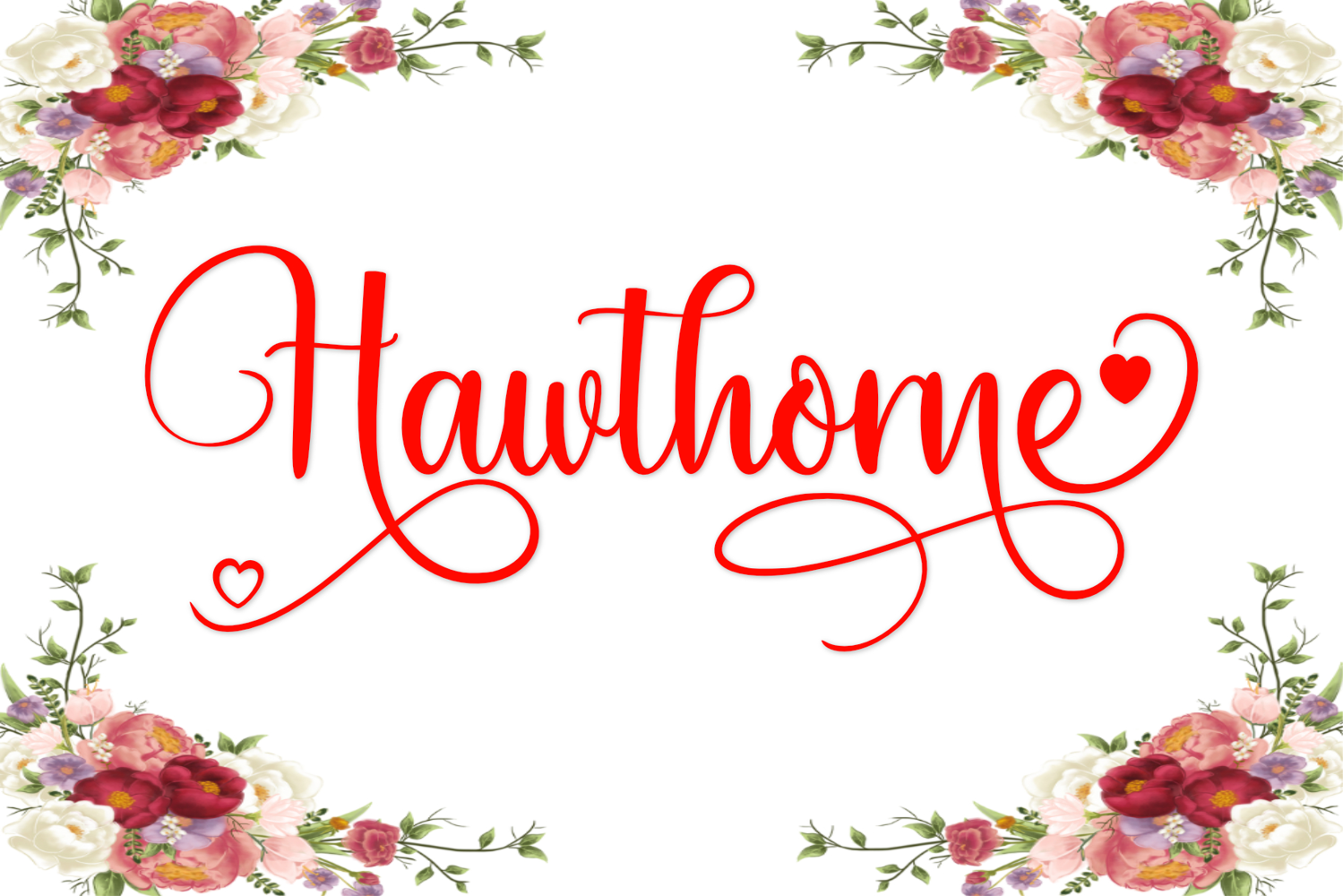
Hawthorne
Hawthorne is a premium script font with a modern and elegant style. Its key features include intricate swashes, flowing lines, and a sophisticated look. Perfect for branding, invitations, and other design projects requiring a touch of sophistication and luxury